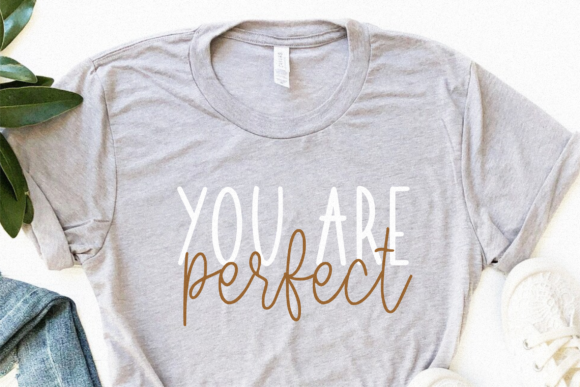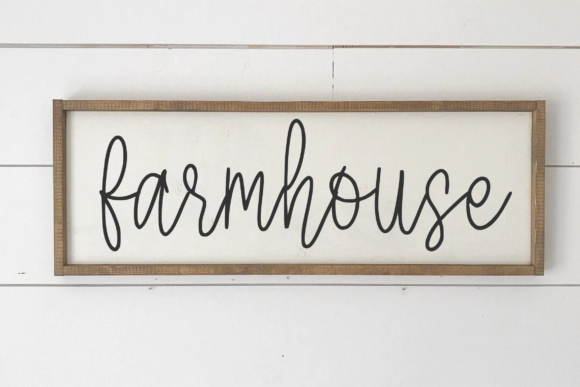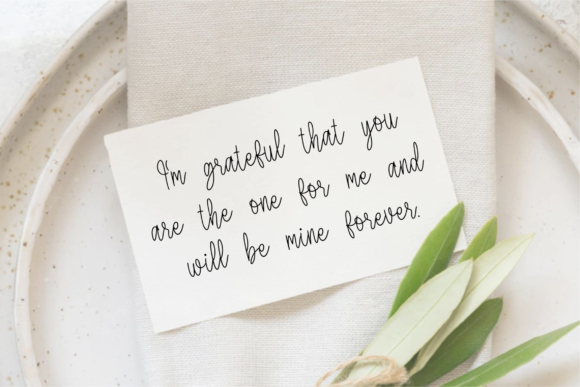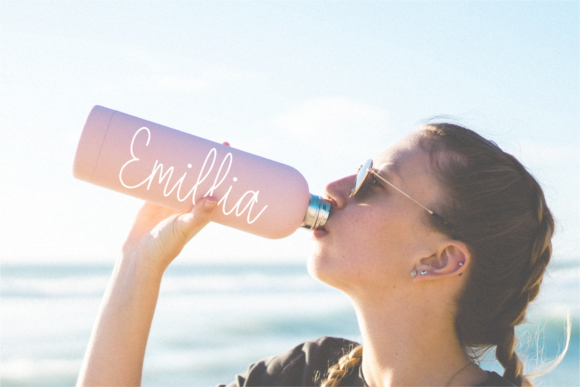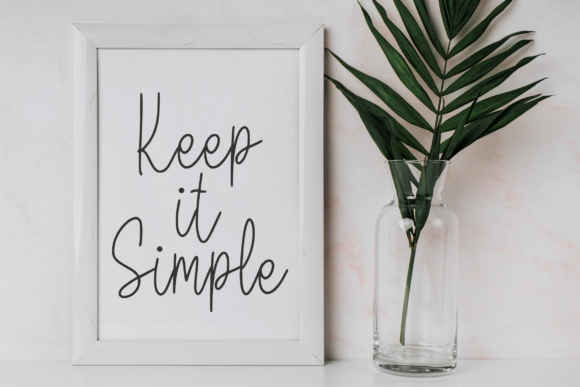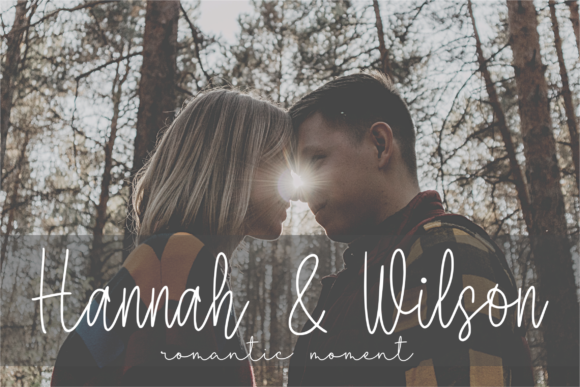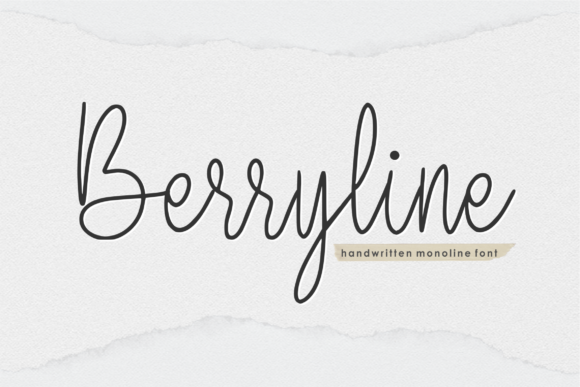
The Sweet Spot: Discovering the Charm of Berryline Font
I’ll never forget the moment I stumbled upon Berryline Font while working on a whimsical craft project for a client. I was on a mission to find the perfect handwritten font that would bring a touch of warmth and personality to the design. As I scrolled through my font library, Berryline caught my eye with its sweet and friendly vibe. It was love at first sight! In this article, I’ll share my experience with Berryline, its unique features, and how to make the most of this beautiful font.
• ✨ Sweet and Friendly: Berryline’s natural and unique style makes it incredibly fitting for a wide range of designs, from crafts to branding.
• ✅ Highly Versatile: This font is perfect for various creative projects, including invitations, labels, and social media graphics.
• 💫 Easy to Read: Berryline’s clear and flowing script makes it easy to read, even at smaller font sizes.
While Berryline is an amazing font, there are a few things to keep in mind:
• 🤔 Kerning: As with many handwritten fonts, kerning can be a bit tricky. Be sure to adjust the spacing between letters to achieve the best results.
• ⚠️ Legibility at Small Sizes: While Berryline is generally easy to read, it may become a bit blurry at very small font sizes (below 10pt). Use it at larger sizes for optimal results.
The Story Behind Berryline: A Glimpse into the Designer’s Inspiration
Berryline was created with the intention of crafting a font that would evoke a sense of warmth and friendliness. The designer aimed to create a handwritten font that would feel approachable and inviting, perfect for a wide range of creative projects. With its natural and unique style, Berryline has become a popular choice among designers, crafters, and creative hobbyists.
Q: What type of projects is Berryline best suited for?
A: Berryline is a versatile font that can be used for a variety of projects, including crafts, branding, social media graphics, invitations, and more.
Q: Is Berryline a difficult font to read?
A: No, Berryline is generally easy to read, even at smaller font sizes. However, it’s best to use it at larger sizes (above 10pt) for optimal results.